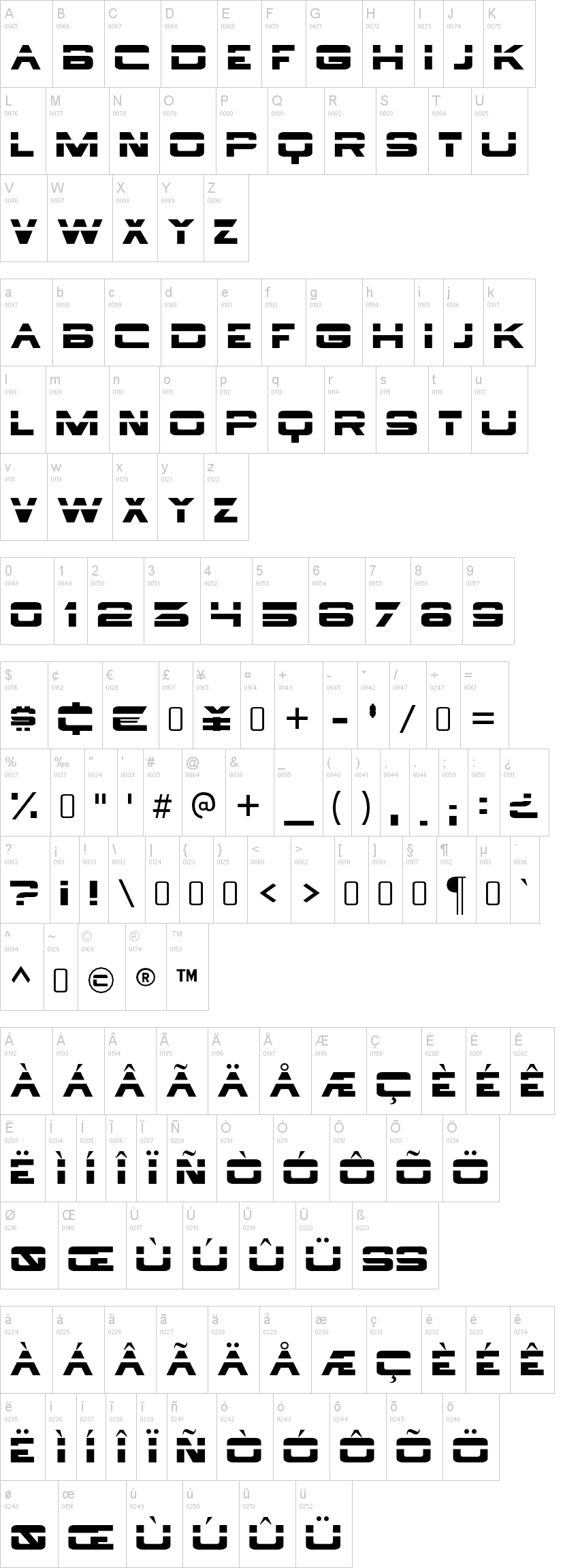
Шрифт Borg 9
Borg9 is a 1980s style techno display font. It was generally seen on fictitious, high tech helicopters. Don't forget to read the files inside the zip for details. Updated in 2012.